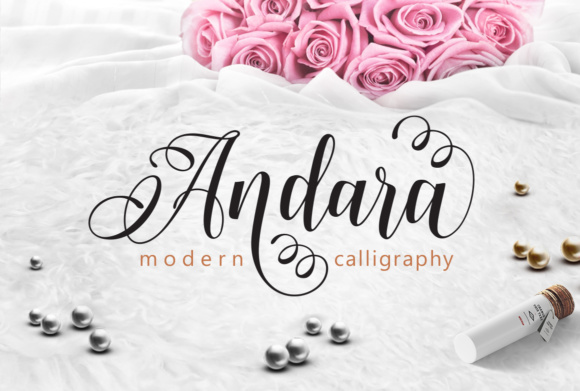
Journey into the world of Andara, a captivating calligraphy font that will ignite the passion within your designs. Let your creativity soar as this contemporary masterpiece adorns your work with elegance and charm.
Meet Andara, a font that embodies the essence of modern calligraphy. Its graceful curves and delicate strokes evoke an ethereal beauty that will leave you spellbound. Immerse yourself in a world of endless possibilities as you explore the depths of this remarkable font.
Created by the talented minds at joelmaker, Andara is a testament to the power of creativity. With its diverse range of glyphs and alternate styles, Andara provides you with the ultimate flexibility to craft designs that resonate with your unique style. Unleash your imagination and let Andara guide you on a journey of artistic expression.
Discover a font that breathes life into your words. Andara's elegant lines and sweeping curves command attention, transforming ordinary text into captivating works of art. Watch as your designs come alive with a touch of sophistication and timeless grace.
As a script font, Andara possesses an inherent charm that adds a personal touch to any project. Its handwritten-like appearance evokes a sense of intimacy and warmth, inviting your audience to connect on a deeper level. Whether you're designing logos, invitations, or social media graphics, Andara will elevate your creations with a touch of timeless beauty.
But Andara is more than just a pretty face. Its versatility knows no bounds, making it the perfect choice for a wide range of design projects. From branding and marketing materials to wedding invitations and personal stationery, Andara effortlessly adapts to any style or theme. Let your creativity shine through as you explore the endless possibilities that Andara has to offer.
Don't settle for ordinary fonts that fail to inspire. Choose Andara, the font that will unlock your creative potential and transform your designs into masterpieces. Its beauty and versatility will captivate your audience, leaving them in awe of your artistic prowess.
Step into the world of Andara and unlock the gate to infinite creativity. Experience the joy of crafting designs that leave a lasting impression. Embrace the elegance and charm of Andara, and let your work speak volumes about your passion for excellence.